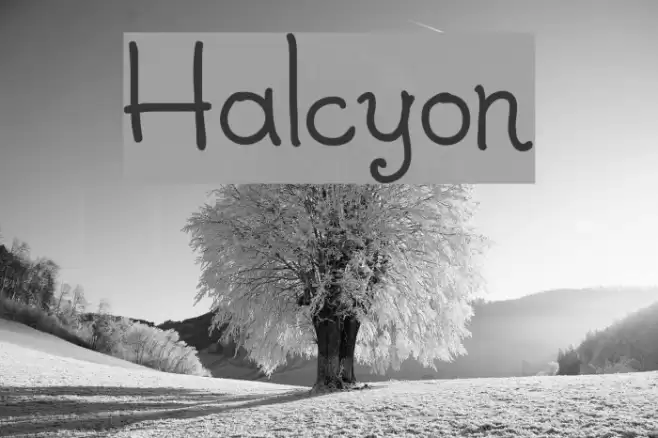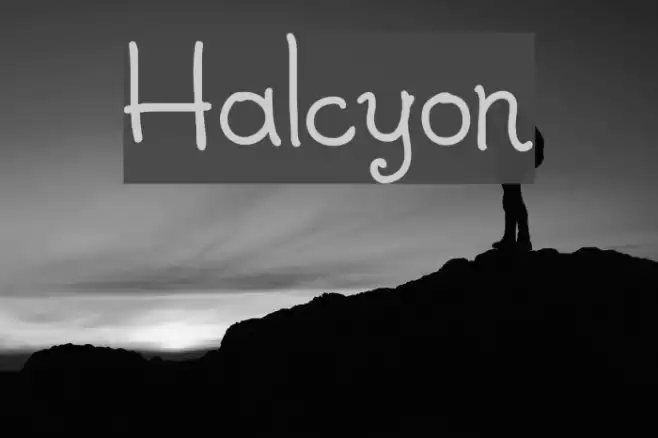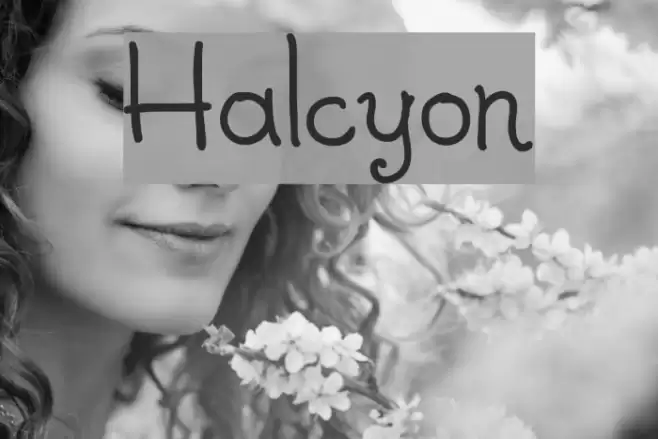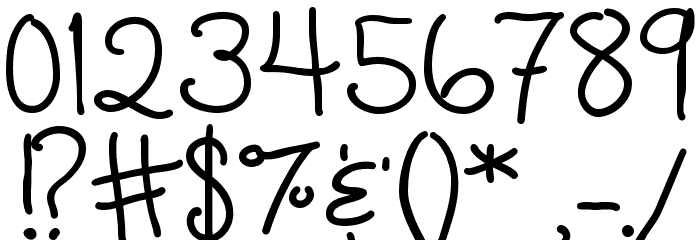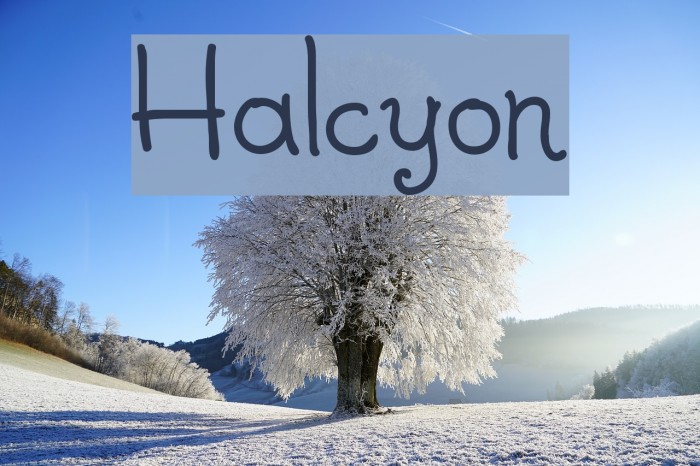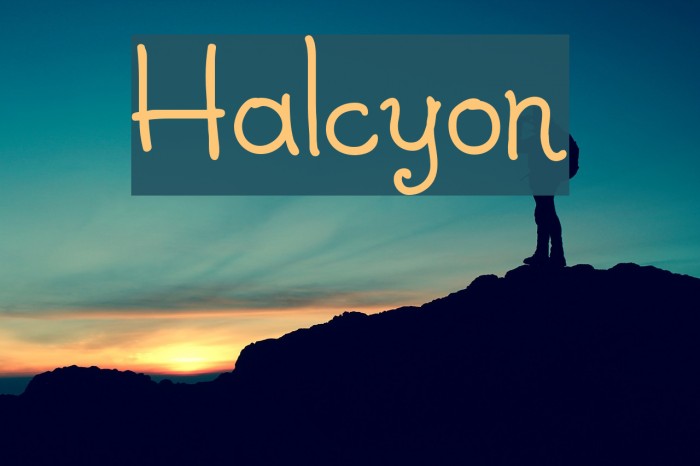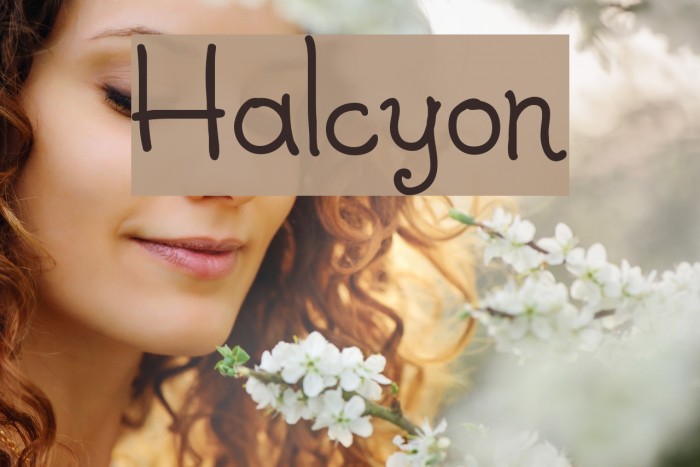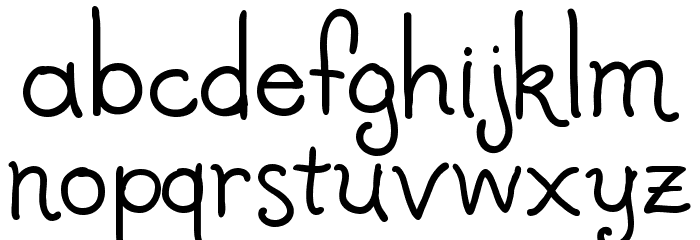
Halcyon Font
Halcyon Description
This font features a playful and casual handwritten style, characterized by its smooth curves and slightly irregular strokes that give it a friendly and approachable appearance. The uppercase letters are bold and rounded, while the lowercase letters maintain a consistent flow with a slightly whimsical touch. The numbers are clear and easy to read, matching the overall style of the alphabet. Special characters are creatively designed, adding to the font's charm. Its informal nature makes it suitable for projects that require a personal or relaxed feel.
A playful, handwritten font with smooth curves and a casual style from Decorative fonts.
- Font: Halcyon
- Proposed Projects: Ideal for greeting cards, children's books, casual branding, and social media graphics.
- Overall Style: Casual
- Use Case: Headlines, Informal text, Creative projects